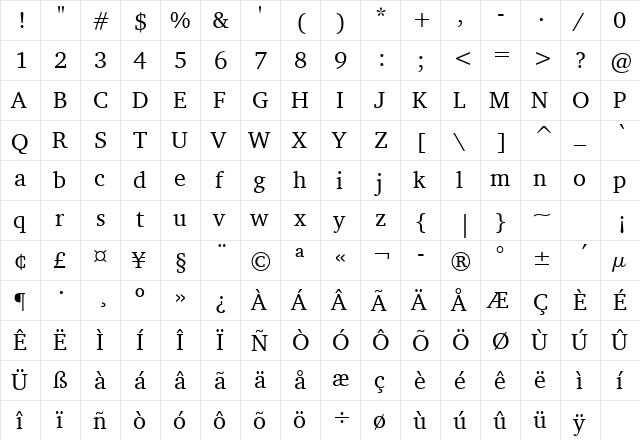
Charter ITC GX Roman
Design Context for Charter ITC GX Typeface
Charter ITC GX takes a measured approach to typography — its balanced proportions and neutral character make it a reliable workhorse for both digital and print work.